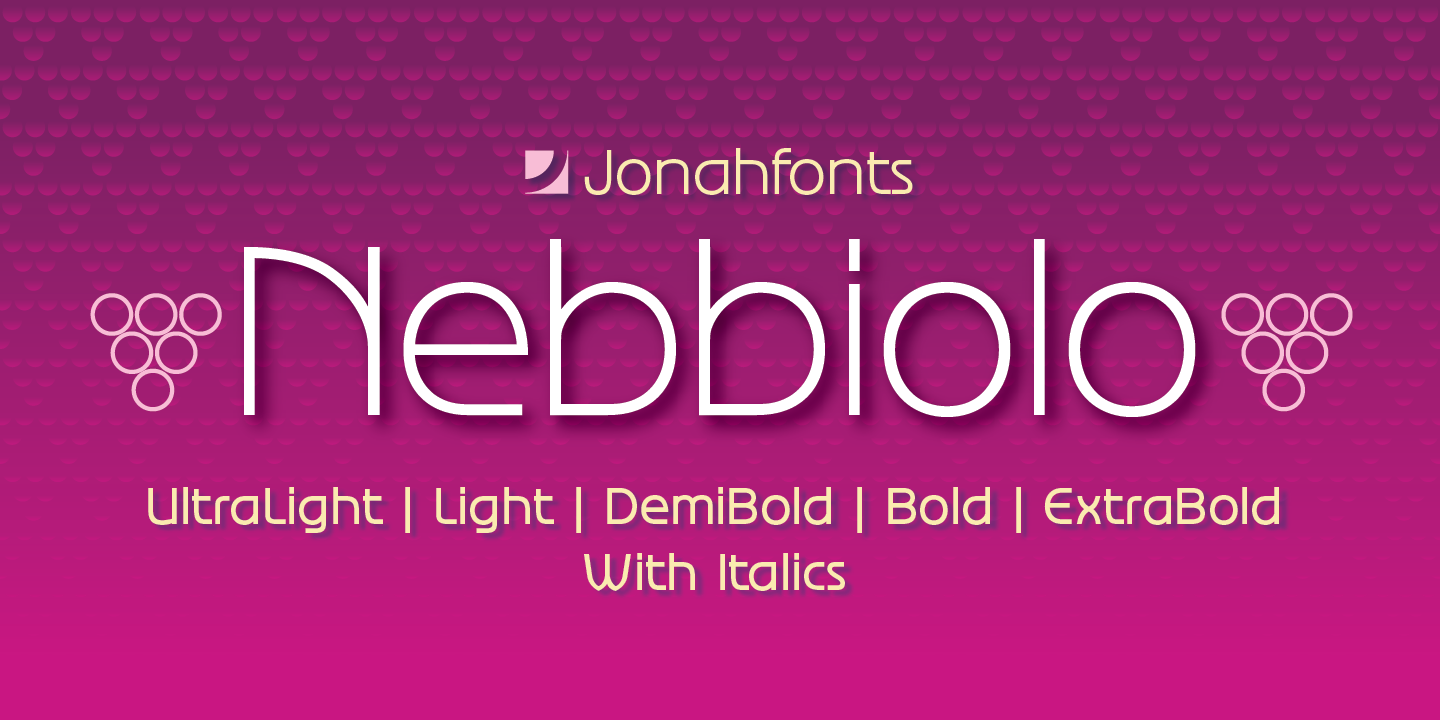
This sophisticated typeface excels in premium wine branding, Italian restaurant menus, luxury food packaging, vineyard signage, gourmet culinary magazines, fine dining establishments, artisanal cheese labels, and upscale gastronomy communications. Its refined elegance makes it perfect for projects celebrating culinary excellence and Mediterranean sophistication.
Nebbiolo Font creates excitement through its vintage sophistication that captures the noble heritage of Italian winemaking and culinary artistry. The font's graceful curves and refined letterforms create an atmosphere of timeless elegance that appeals to connoisseurs seeking authentic quality and traditional craftsmanship. Its meticulously aged character variations deliver rich visual complexity while maintaining exceptional legibility that reflects the depth and complexity of fine wine appreciation.
The Nebbiolo Font family features multiple vintage-inspired variations including regular, light, bold, italic, and decorative styles. Each family member maintains the distinctive wine country aesthetic while offering different levels of sophistication for various culinary applications. This curated collection enables designers to create tasteful compositions that honor Italian heritage while appealing to contemporary palates seeking authentic gastronomic experiences.
The Nebbiolo Font Free Download provides designers with access to premium culinary typography that brings authentic Italian sophistication to any project. Its vintage character and gastronomic appeal make it ideal for creating memorable food and wine brands that celebrate quality and tradition. Whether developing vineyard identities, designing restaurant materials, or crafting gourmet marketing campaigns, this font delivers the sophisticated appeal and cultural authenticity essential for connecting with discerning audiences who appreciate the finer things in life and understand the artistry behind exceptional culinary experiences.